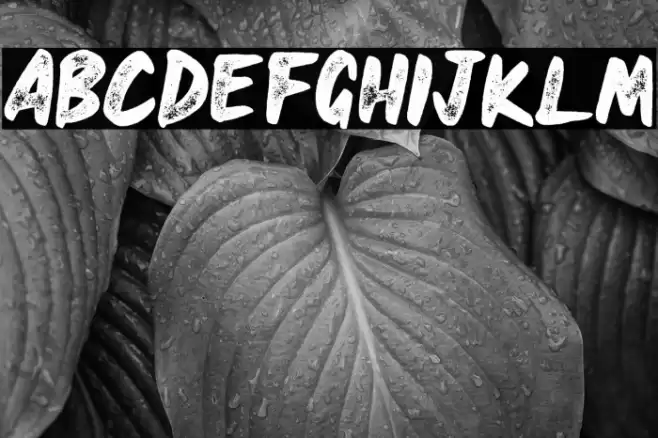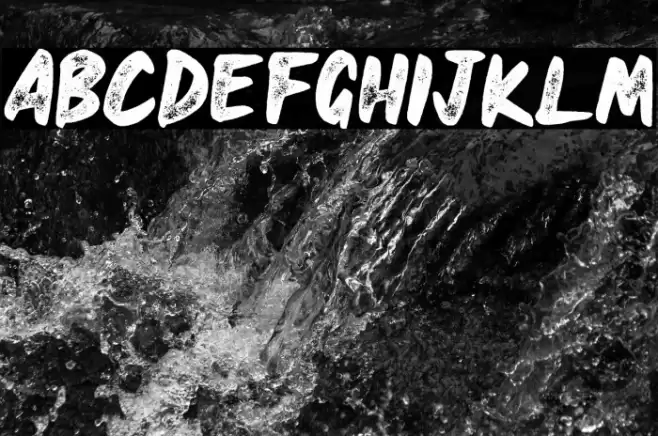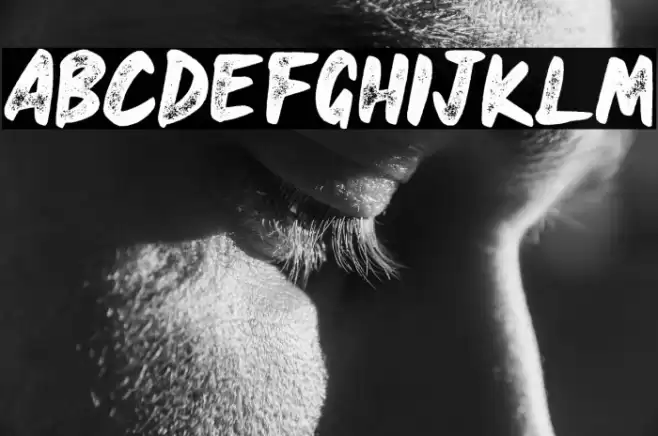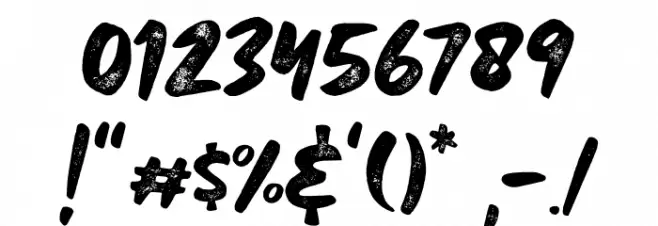
HEAVYRUST ROUGH Font
HEAVYRUST ROUGH Description
This font features a bold, distressed style with a rough texture that gives it a rugged, hand-crafted appearance. The letters are uppercase and exhibit a dynamic, slightly slanted orientation, adding a sense of movement and energy. The texture within each character mimics a worn, weathered look, reminiscent of vintage signage or industrial design. The numbers and special characters maintain this consistent style, ensuring a cohesive look across all glyphs. This font's unique aesthetic makes it stand out, perfect for projects that require a bold statement.
A bold, distressed font with a rugged, hand-crafted appearance from Uncategorized fonts.
- Font: HEAVYRUST ROUGH
- Proposed Projects: Ideal for branding, posters, album covers, and any design requiring a bold, vintage look.
- Overall Style: Vintage